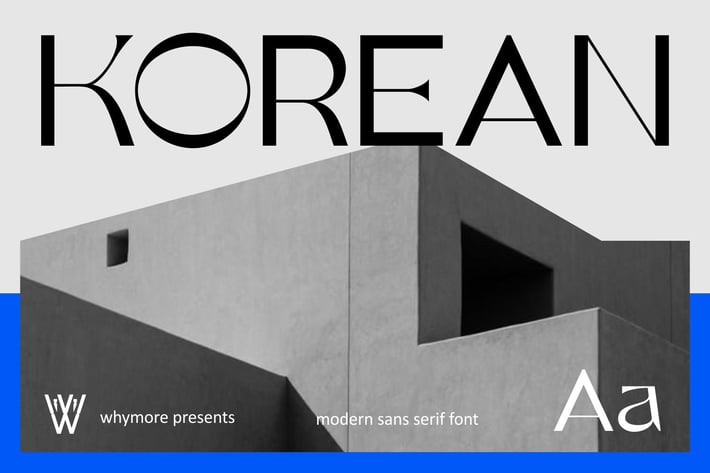
Korean - Futurstic Helvetica fonts
Well, Korean will brings you to the next level of a stunning typeface that can showcase elegance but with a minimalist form.
The curves at each end of the letter ornament illustrate that this font is very ready to live in the present and the future.
Minimalist yet luxurious and classy. Whether used for branding, Design templates, in the form of invitations, calendars, posters, headlines, brochures, promotional tools or editorial designs, Korean was created to meet the visual needs of a technological modernity development.
The versatile nature of the Korean font makes it suitable for headlines, logos and lettering. Its legibility ensures clear communication yet invites a sharp eye catch. Korean is the perfect choice for those looking for a typeface that embodies the Future and sophistication that will not be limited by time. With a futuristic style and Combined between serif and sans fonts it can bring you to a different visual work.